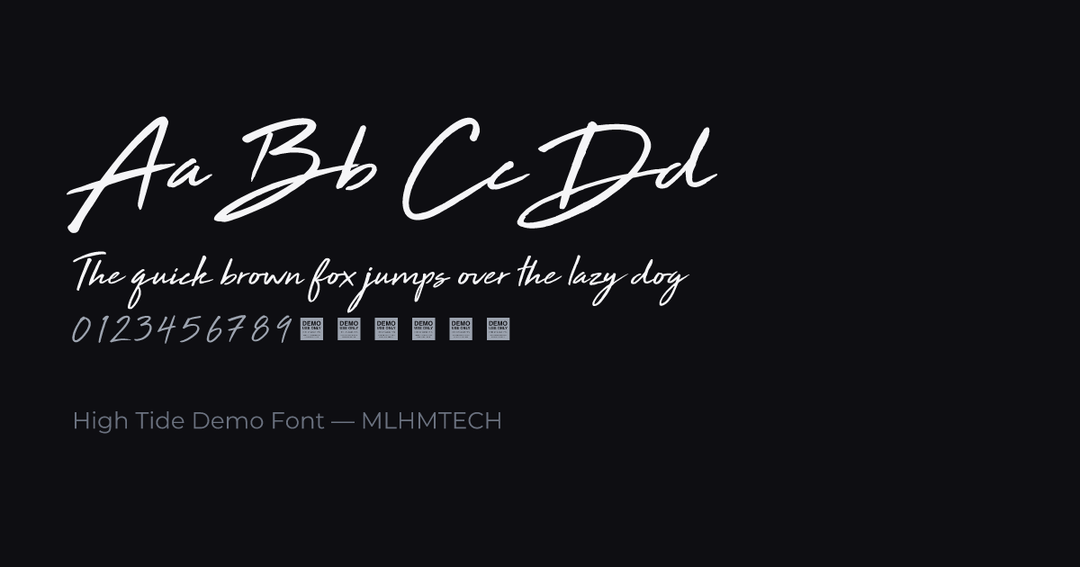
High Tide Demo Font
High Tide Demo is a bold, expressive display font that adds a touch of coastal charm to your designs. Ideal for titles, logos, and branding projects.
High Tide Demo is a unique display font that captures the essence of the ocean with its flowing, wave-like strokes. Its bold and confident character makes it perfect for headlines, posters, and any project that needs a strong visual impact.
Whether you're designing a surf brand logo, a summer event poster, or a creative social media graphic, High Tide Demo will bring a fresh, energetic vibe to your work.